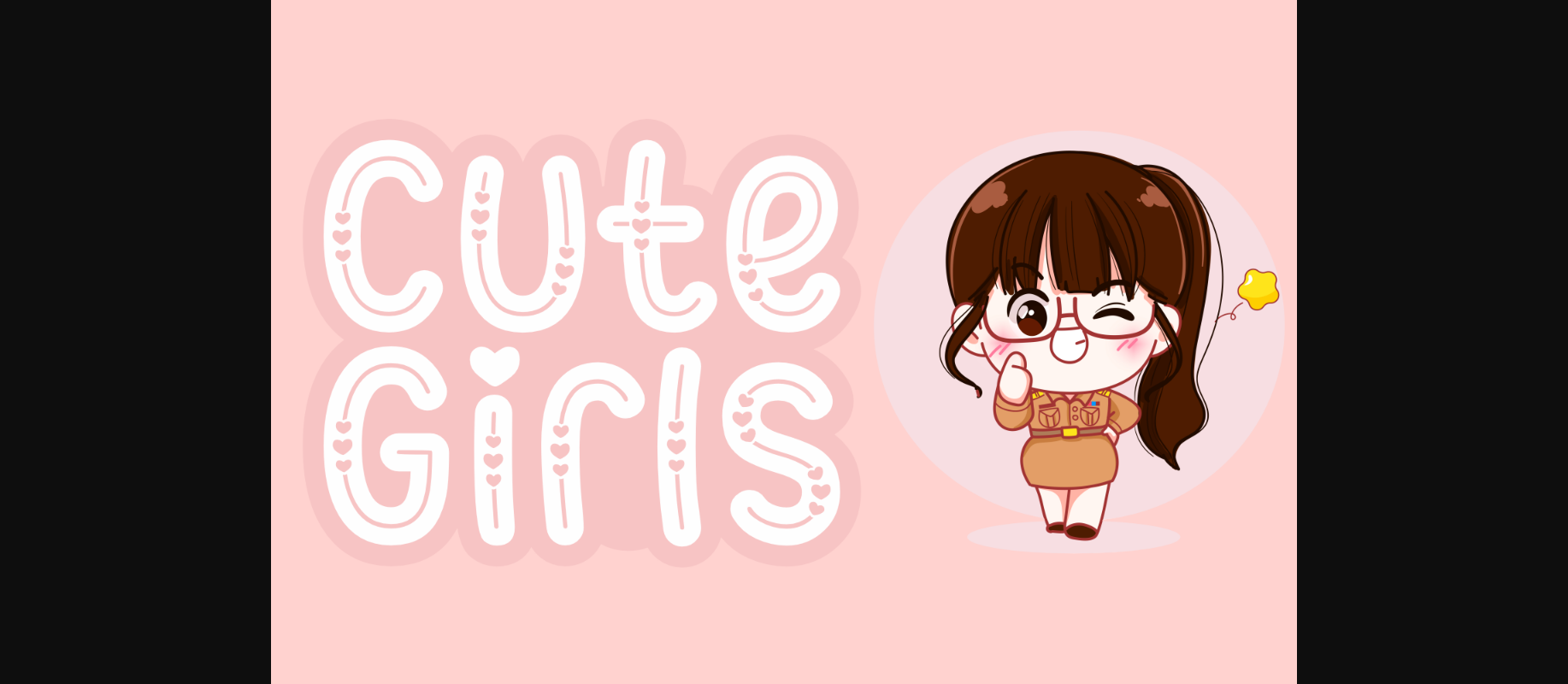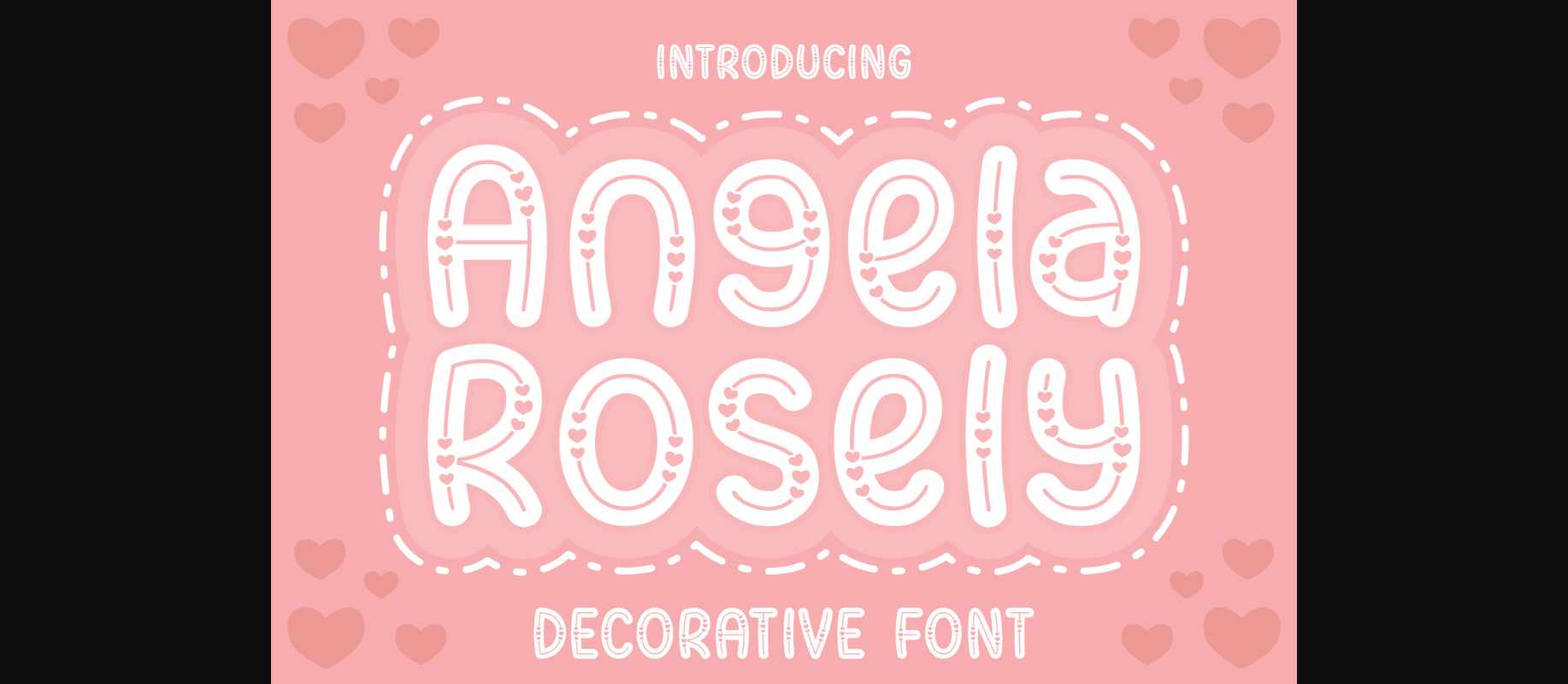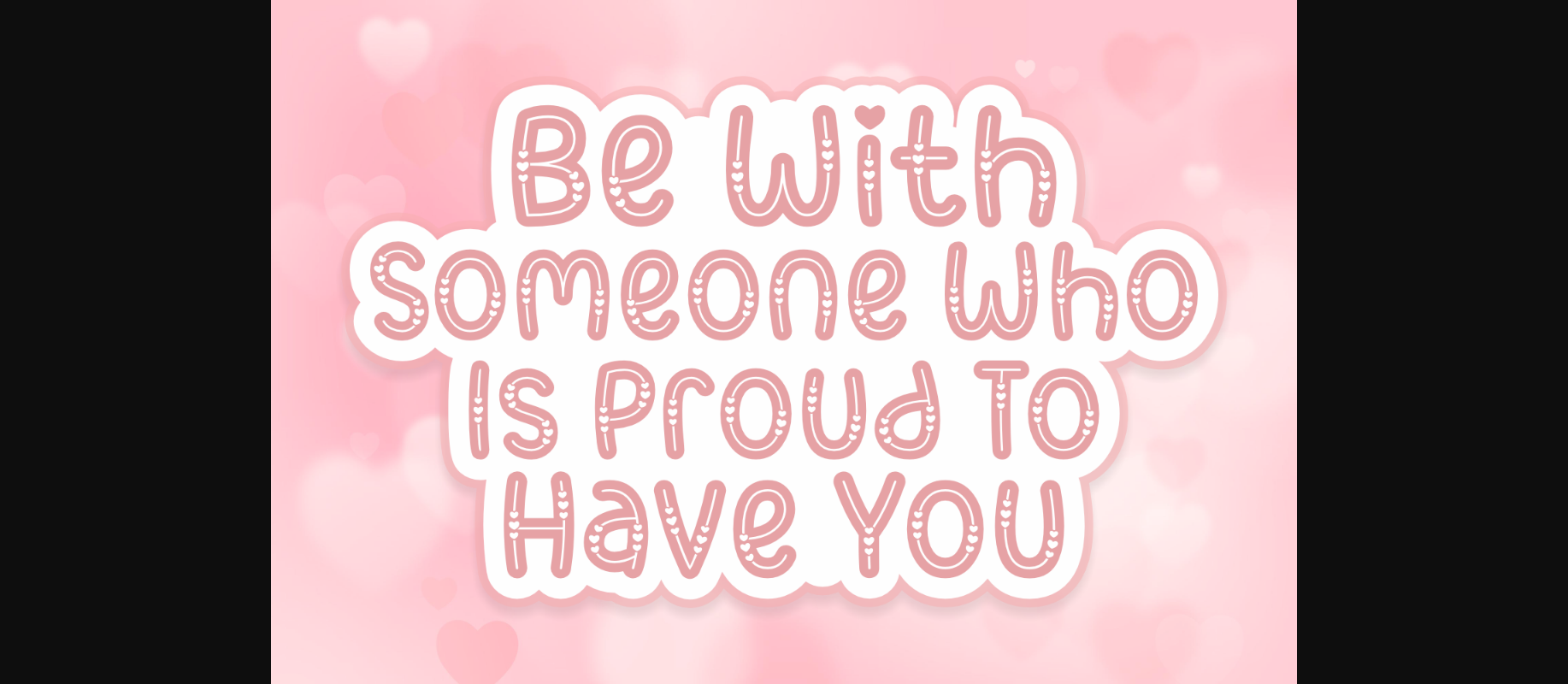
About Angela Rosely Font
Angela Rosely is a lovely and creative decorative font. This chubby font features romantic inline character sets with little hearts for a playful touch. Add this set for branding purposes, advertising, book covers, headlines, poster designs, wedding cards, kids’ clothing, music albums, etc.